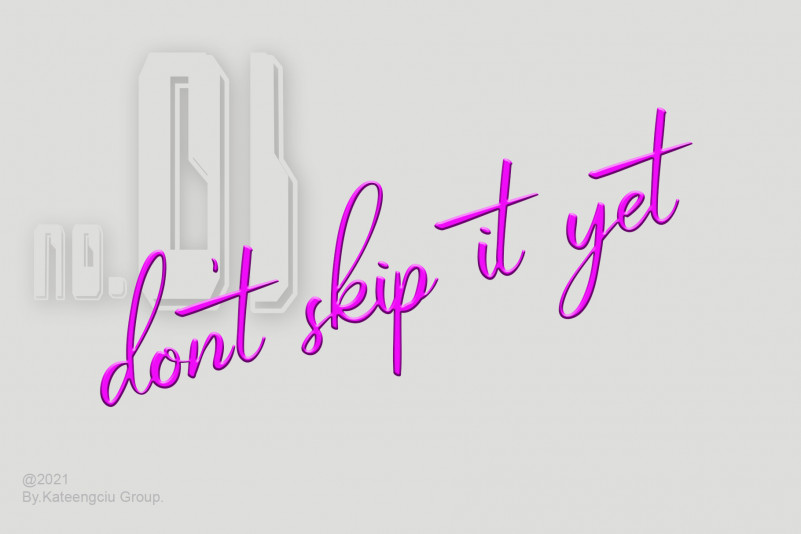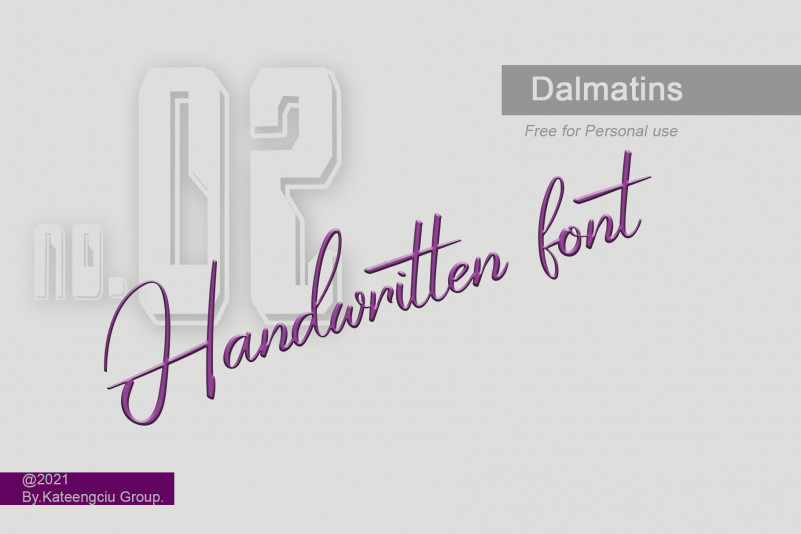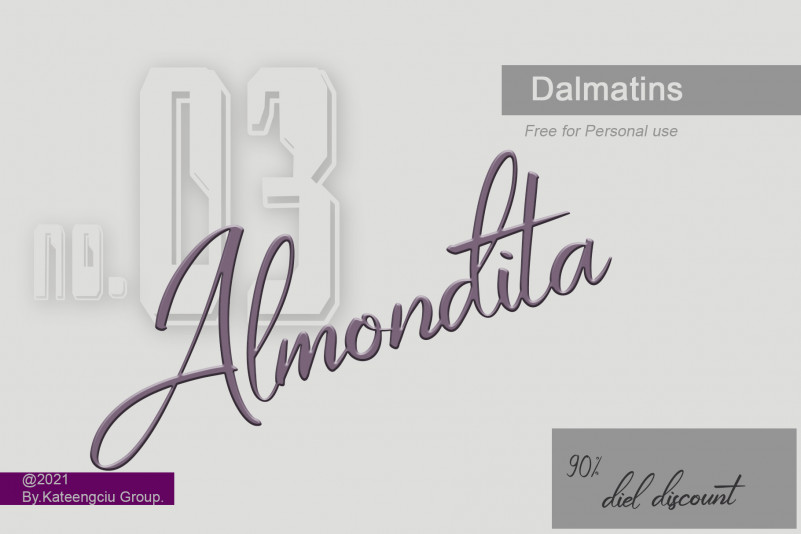
Handmade Signature Script Font
Handmade Signature Script Font is a great. It maintains its classy calligraphic influences while feeling contemporary and fresh. This versatility will appeal to a wide range of crafty ideas, from letterheads and titles to stationery.